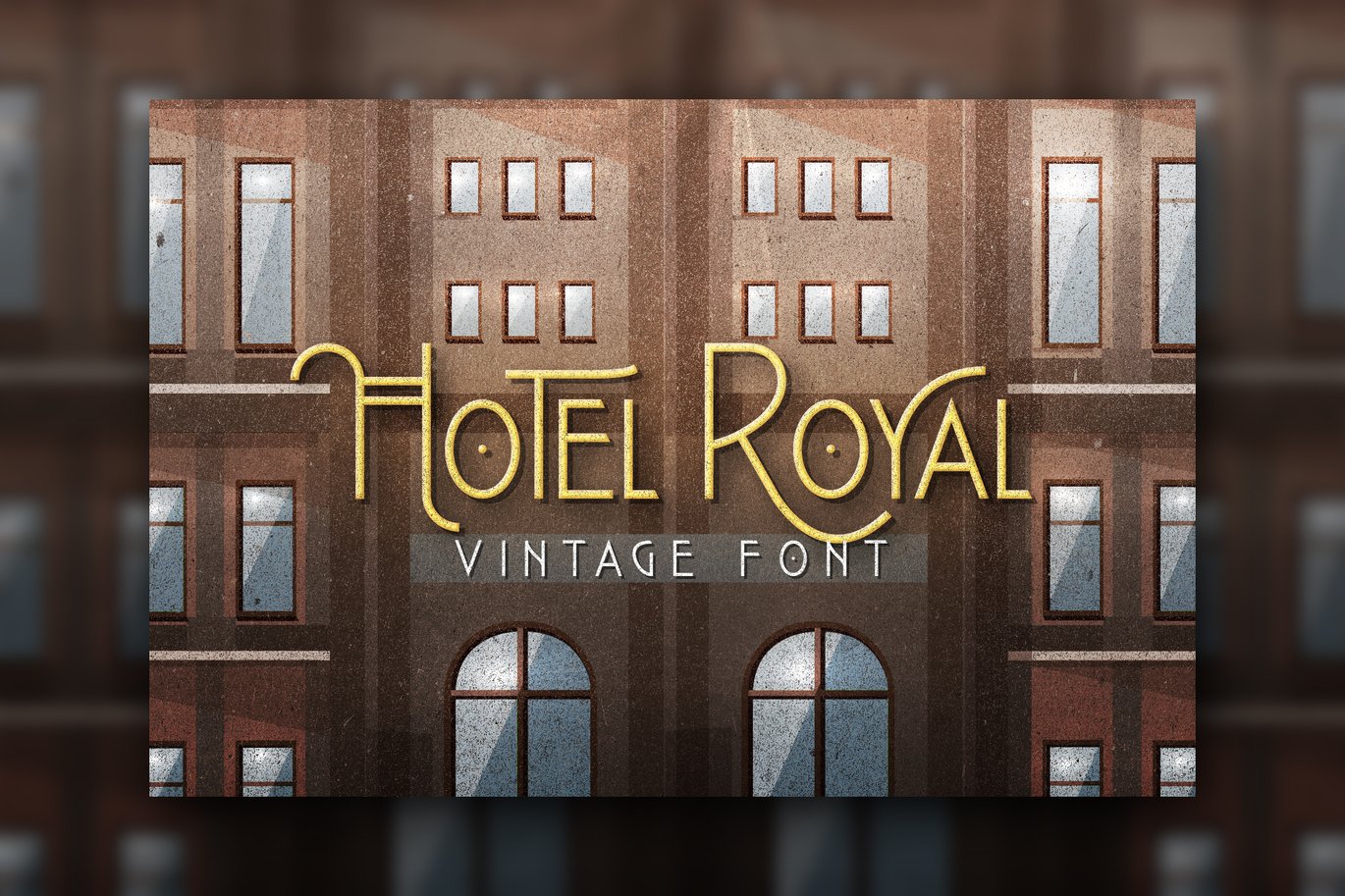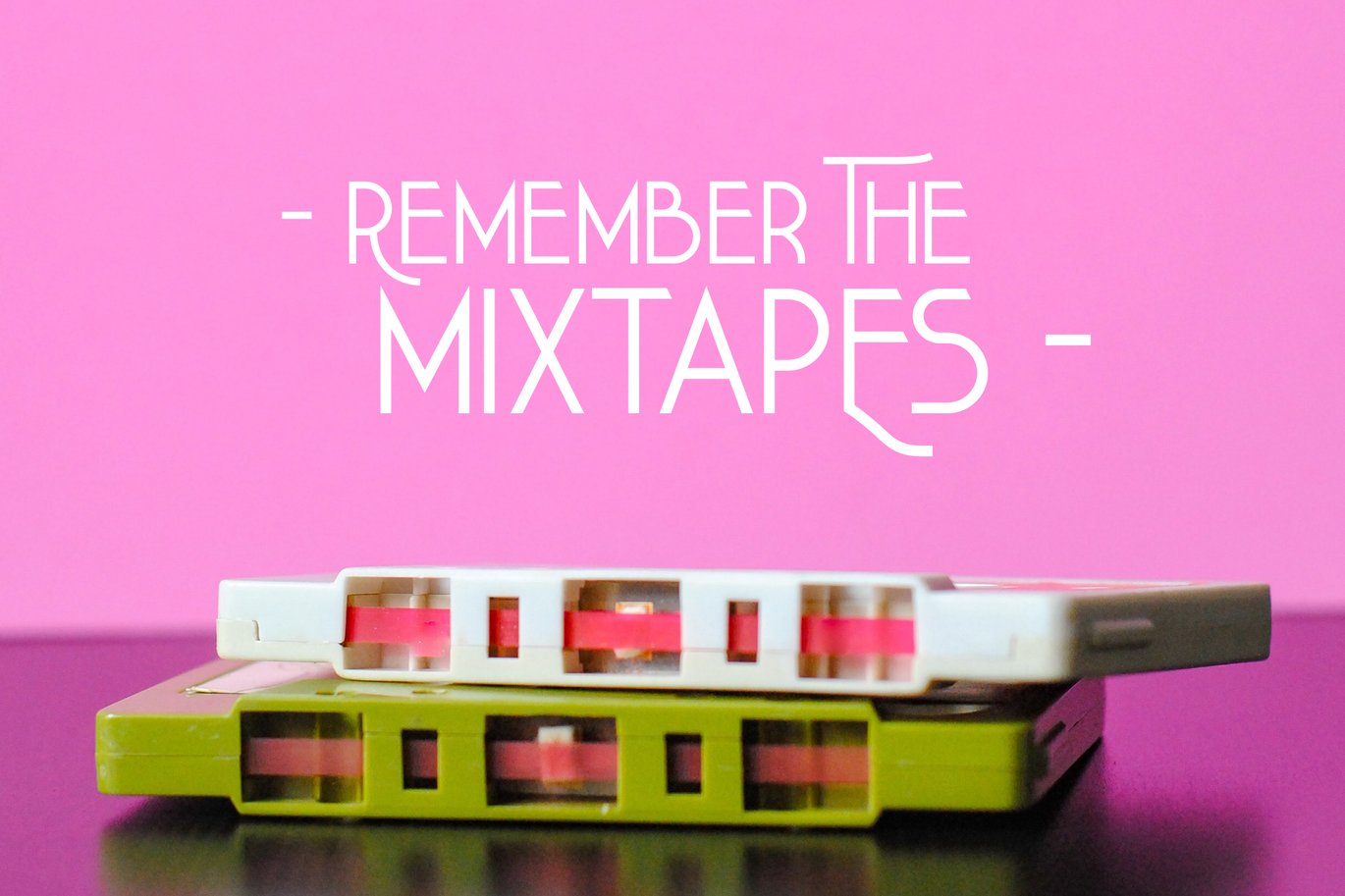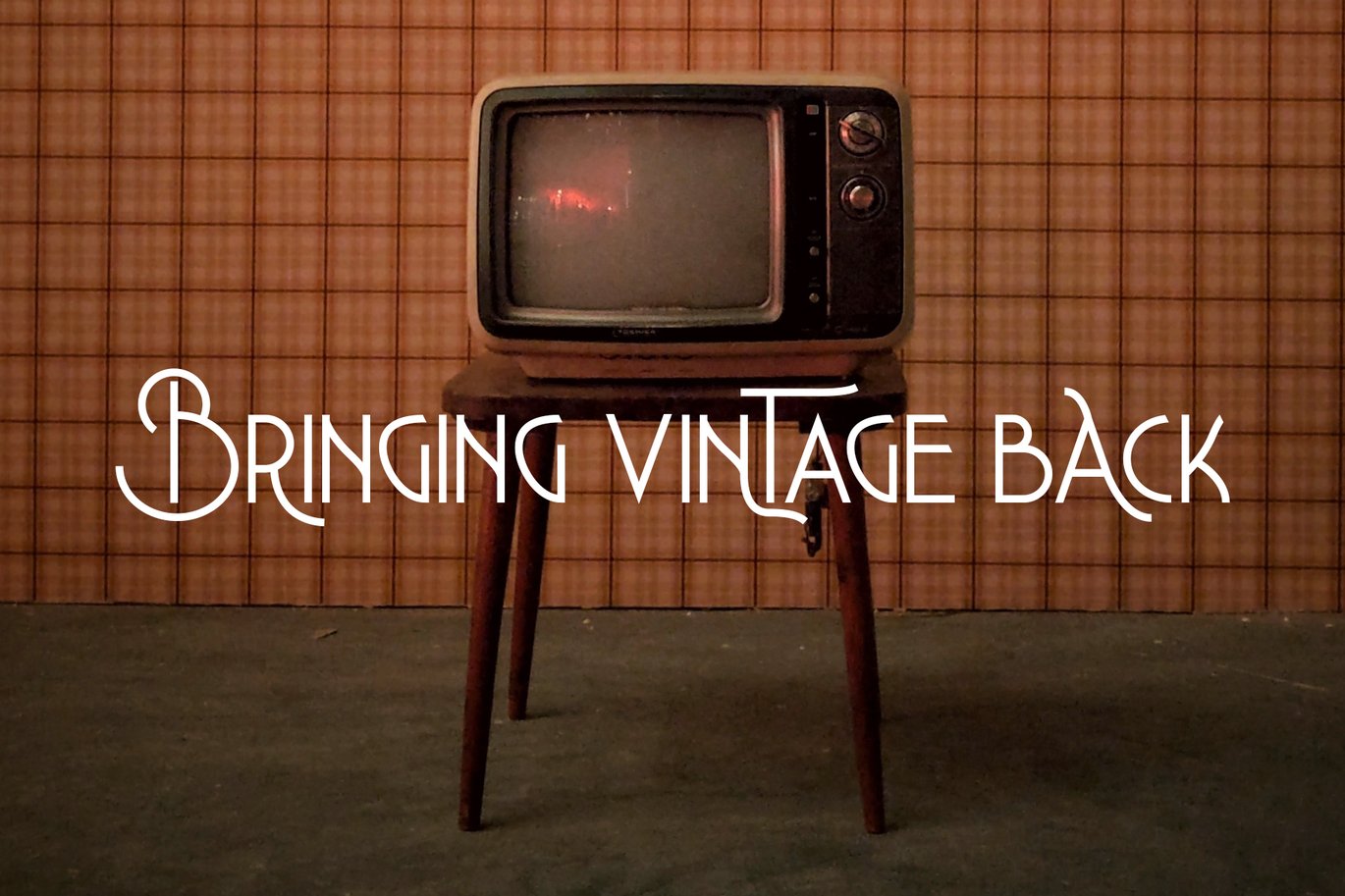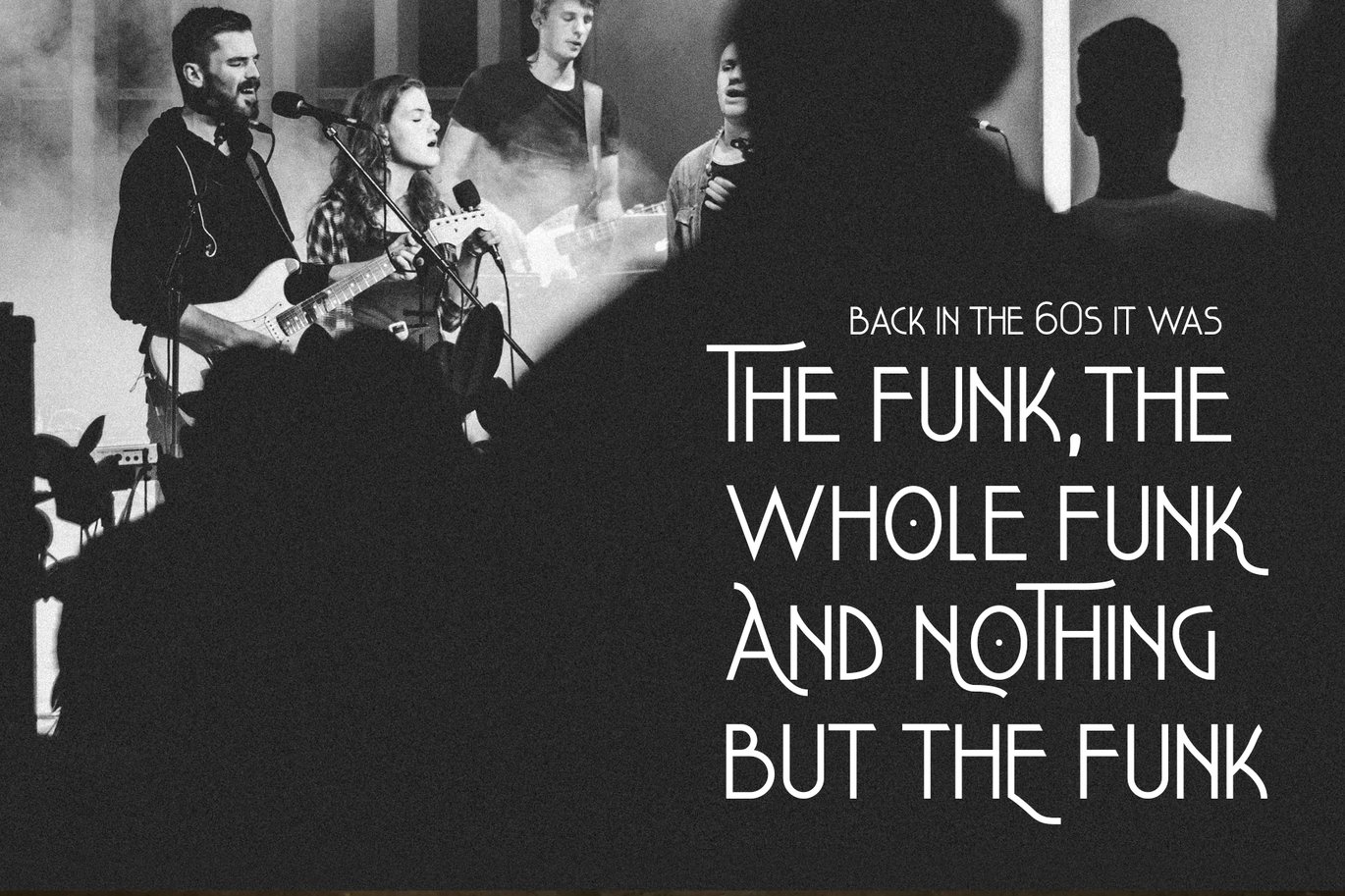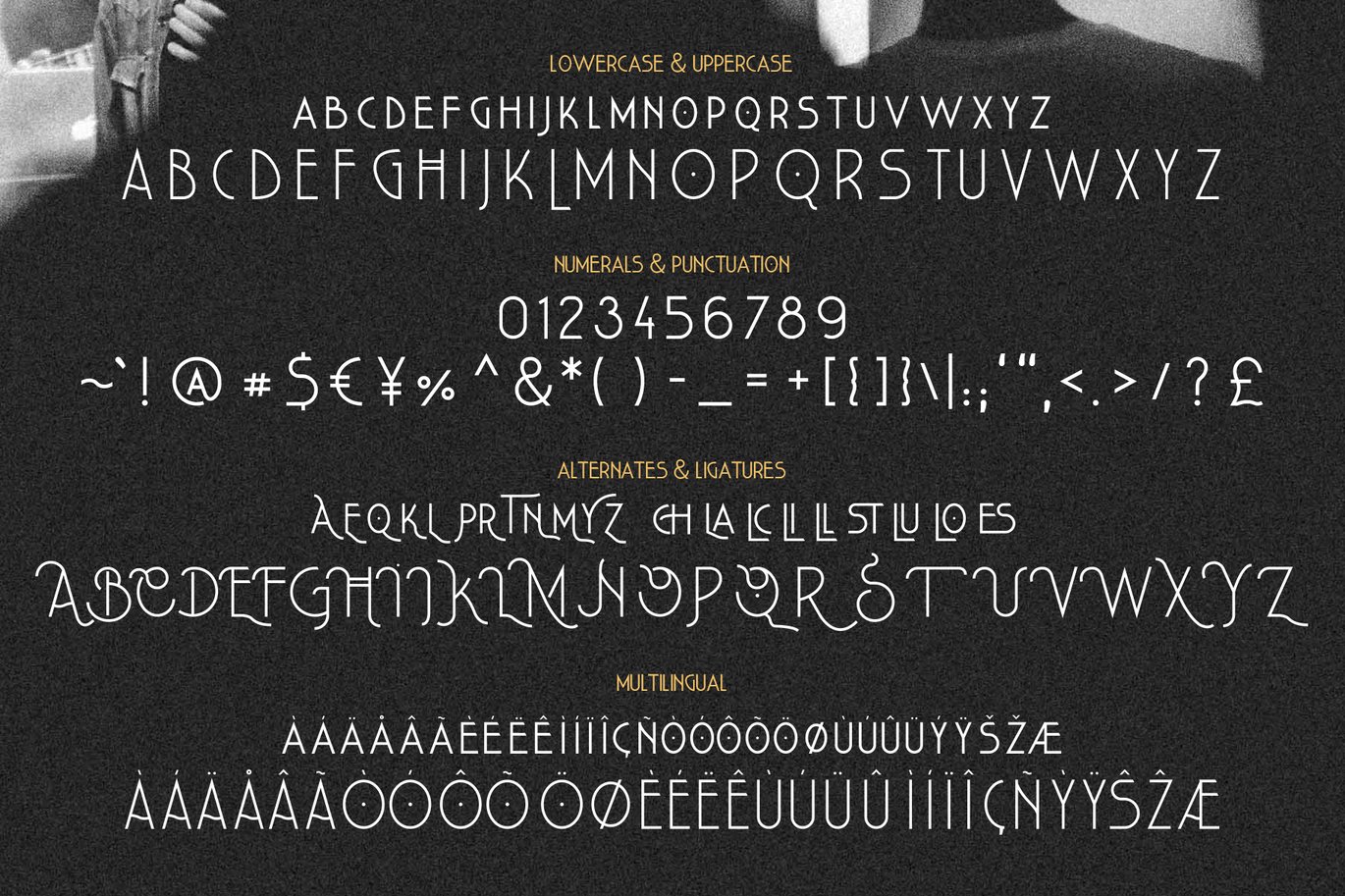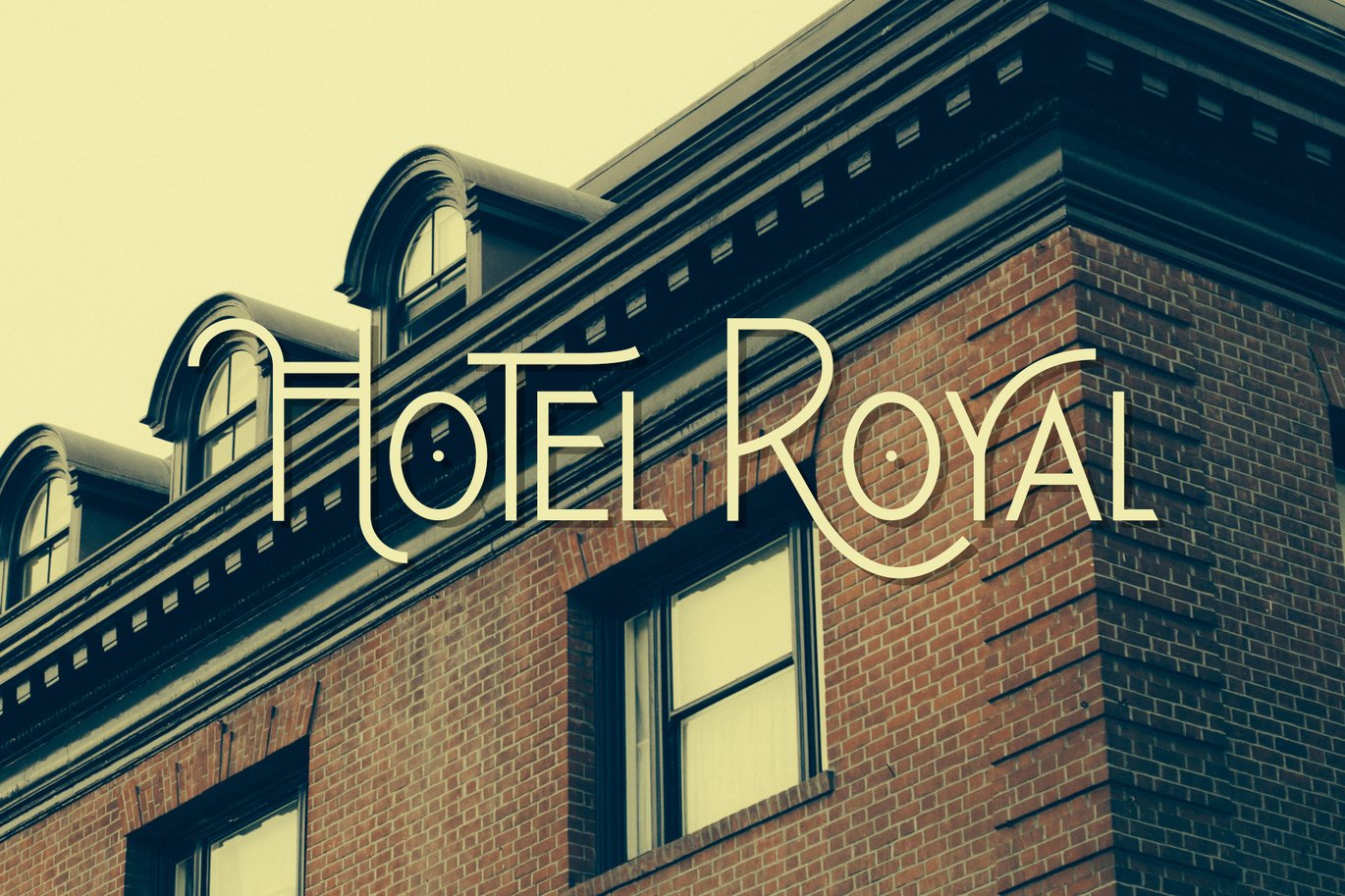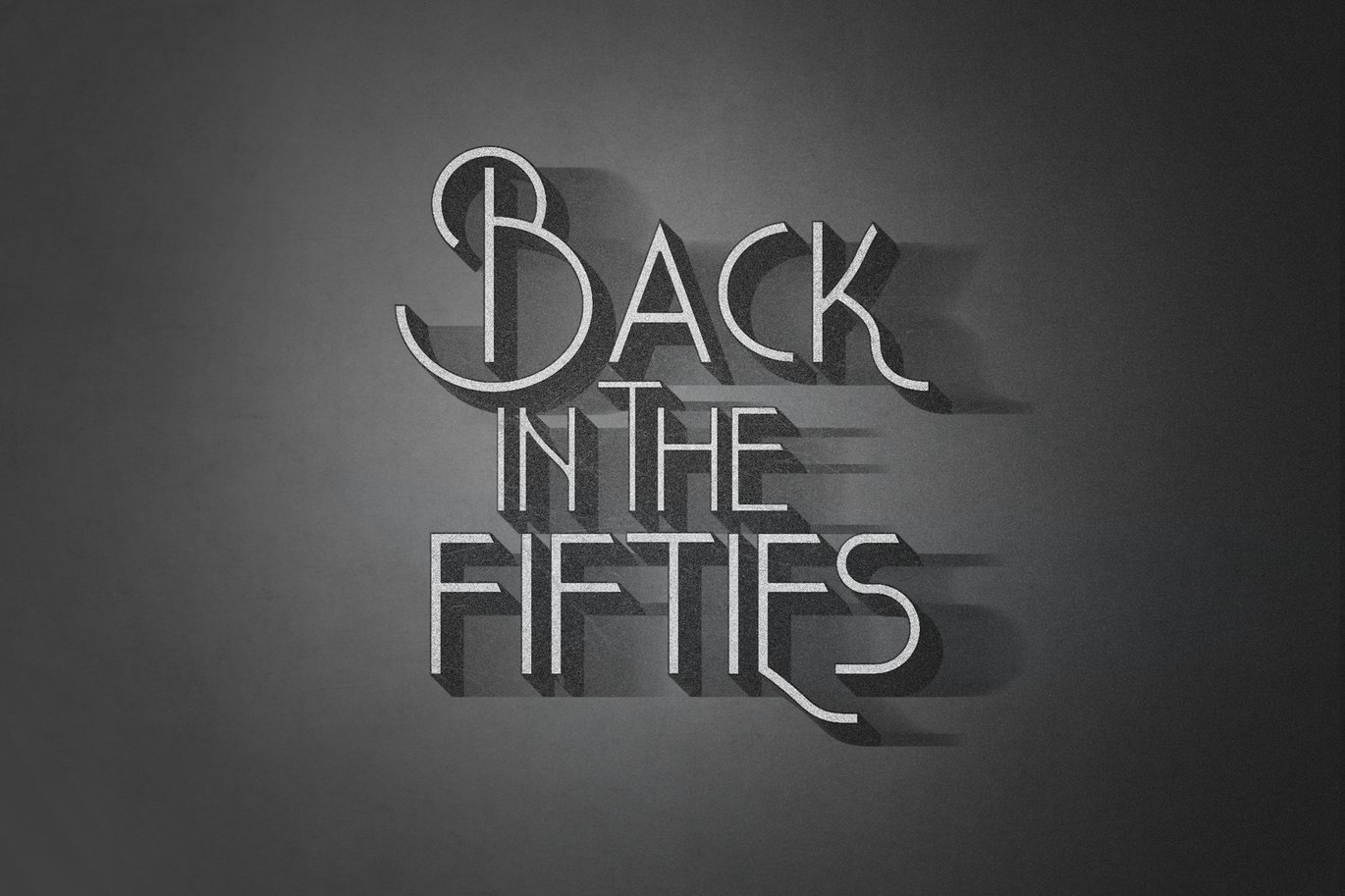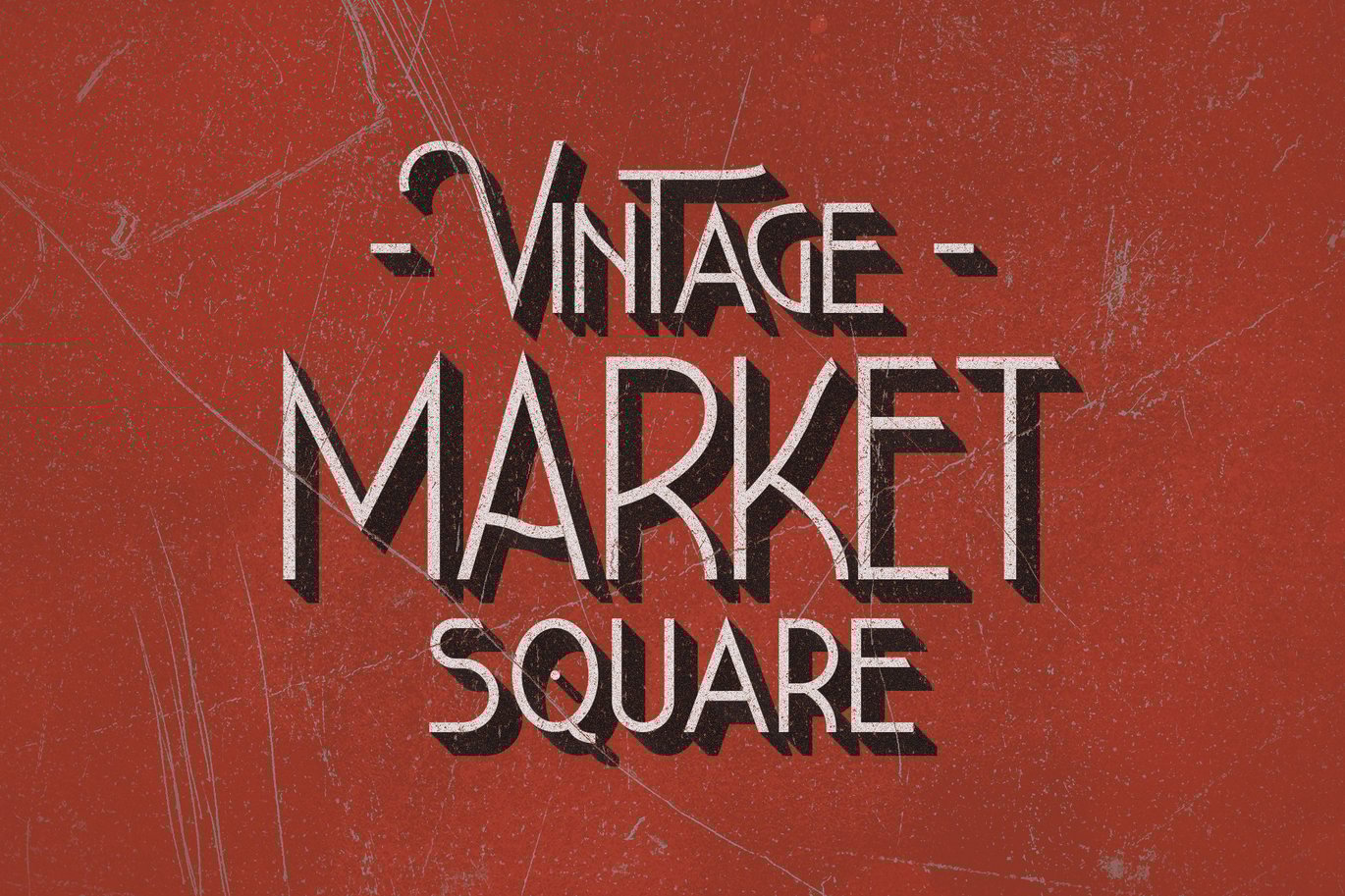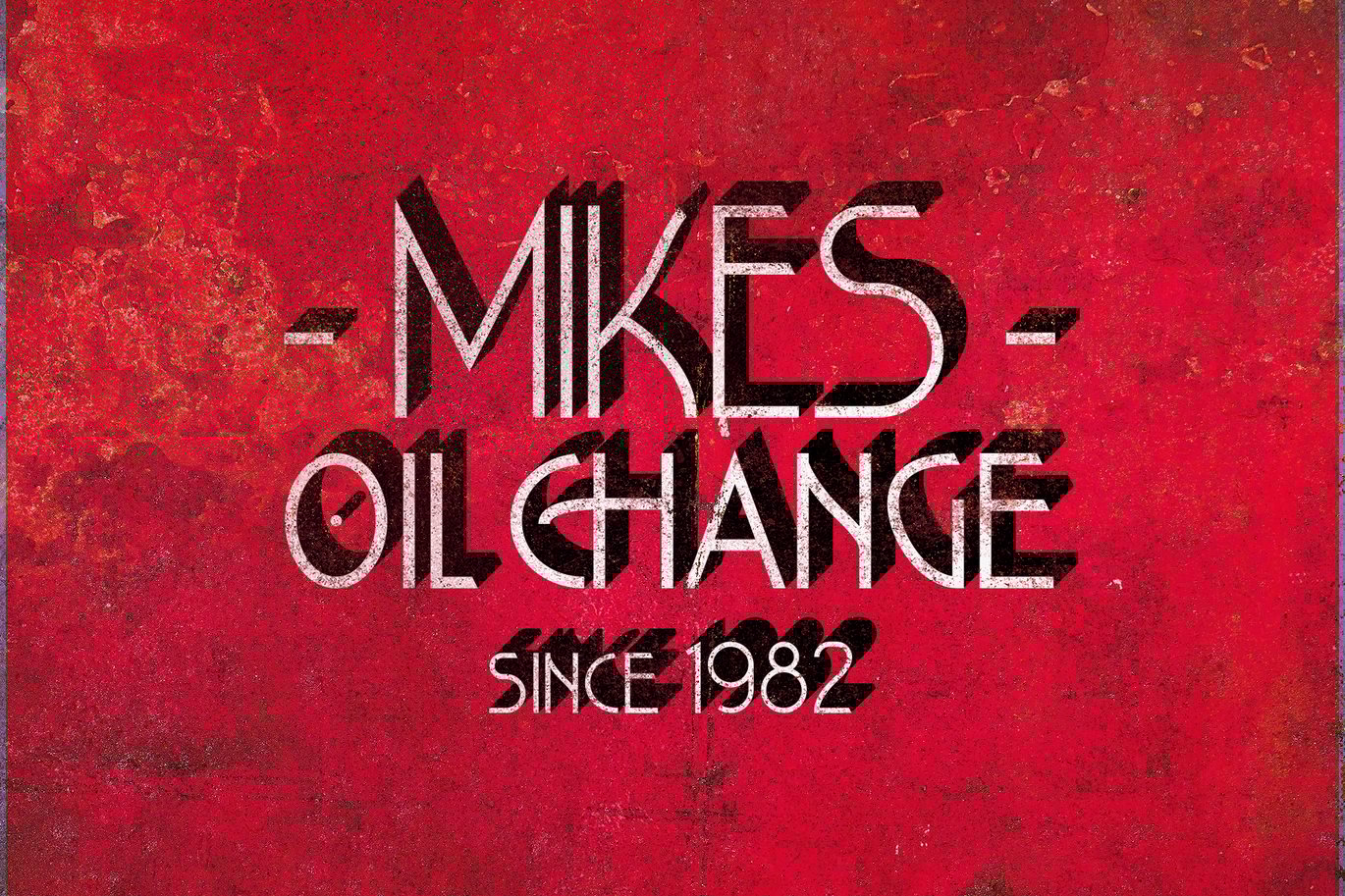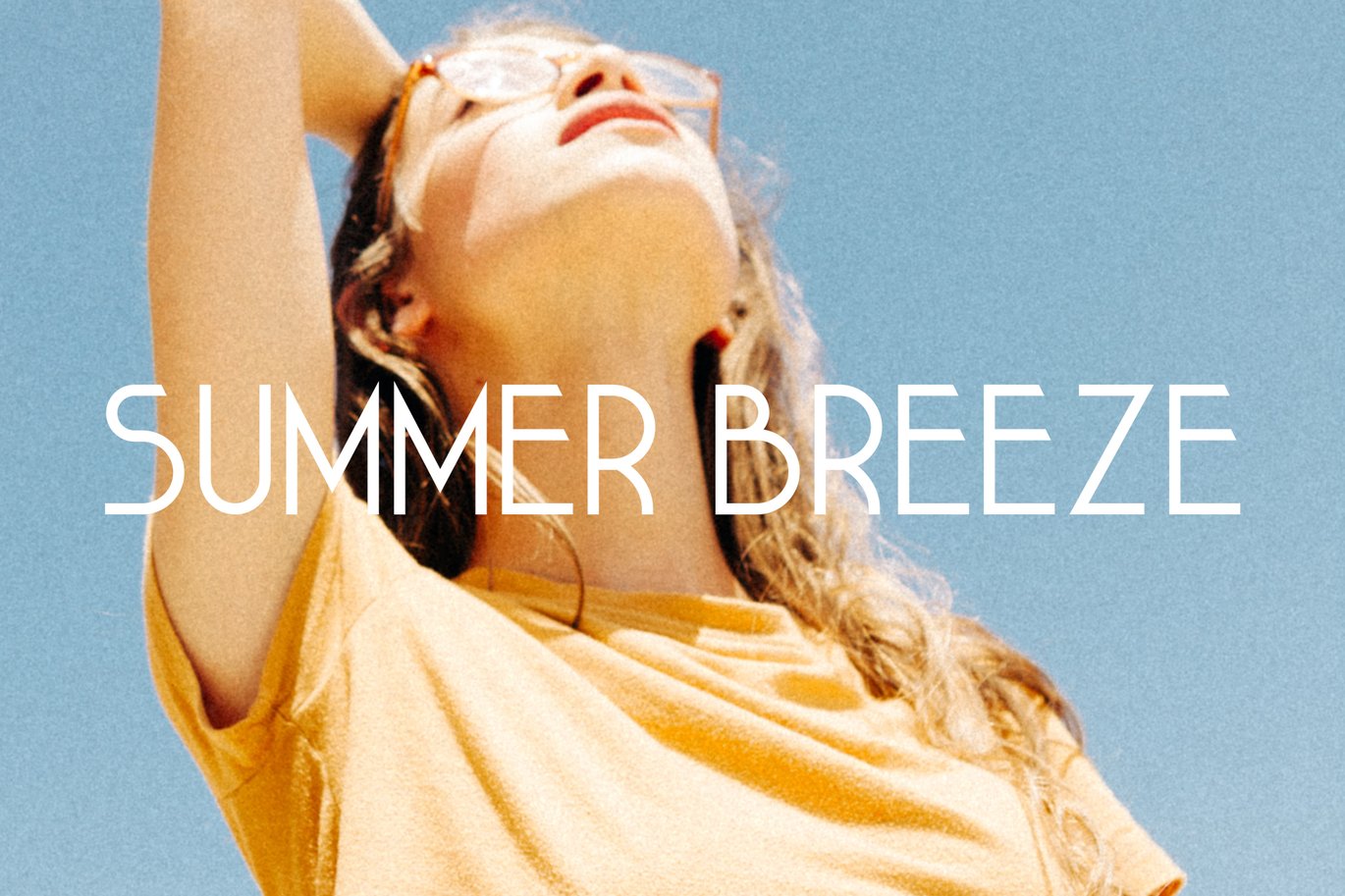
Royal Hotel Font
Hotel Royal is a vintage font inspired by the fonts used for vintage hotel labels from the first half of the 20th century. These labels where stickers placed on luggage by hotels for advertising purposes.
- Uppercase and lowercase
- Numerals and punctuation
- Alternates and ligatures